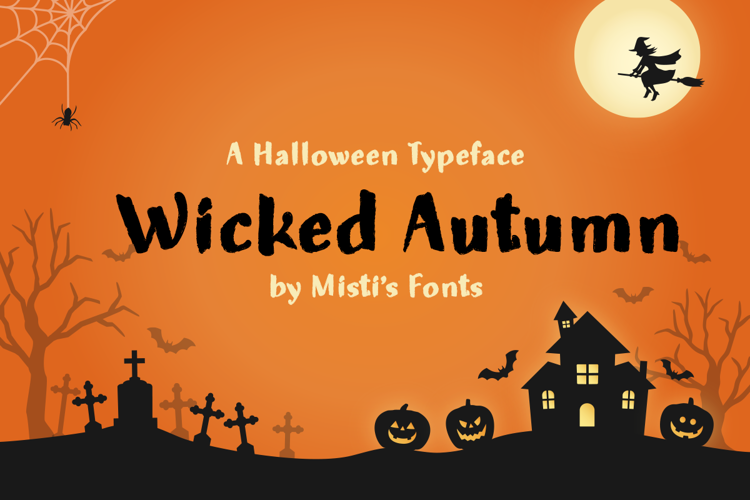
Wicked Autumn Font
About Wicked Autumn Font
Introducing Wicked Autumn, the perfect font for all your spooky Halloween needs! This font features a rough and edgy design that will add an extra element of fright to any project. The chalk effect gives it a unique and eerie look that is perfect for creating posters, flyers, and social media graphics for your upcoming Halloween event.
With Wicked Autumn, you can capture the essence of the season and create a chilling atmosphere that will leave a lasting impression on your audience. The font’s distinct design adds a touch of mystery and intrigue, making it perfect for horror-themed projects or any design that requires a little extra spookiness.